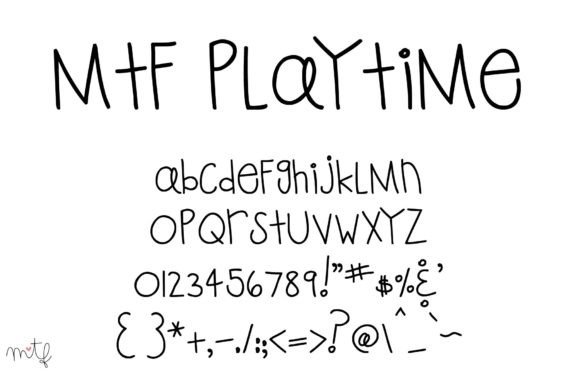
Playtime Font
About Playtime Font
Playtime is not just a font; it’s an invitation to infuse your creations with friendliness and a carefree attitude. This delightful handwritten typeface brings a playful charm to anything it touches, complementing your designs with a touch of joy. Slightly minimalistic yet remarkably tidy, Playtime is designed to please and enhance a wide array of projects.
The essence of Playtime lies in its ability to inspire a lighthearted and friendly vibe. The characters carry a sense of playfulness, inviting viewers to engage with your content in a joyful manner. Whether you’re creating social media graphics, invitations, or any other design, Playtime ensures a positive and welcoming atmosphere.
The font’s handwriting style adds a personal touch to your text, making it feel approachable and genuine. This authenticity is key in fostering a connection with your audience. Playtime is more than just letters on a page; it’s a visual representation of the carefree spirit it embodies.
Slightly minimalistic in its design, Playtime strikes a balance between simplicity and character. The tidy and well-defined letterforms contribute to the font’s overall clarity and readability. This makes Playtime a versatile choice for a variety of projects, from branding to creative endeavors.
The versatility of Playtime shines through in its ability to complement a wide range of design elements. Whether you’re crafting a logo, designing merchandise, or creating playful banners, Playtime adds a touch of delight without overwhelming the visual space. It adapts seamlessly to different contexts, enhancing your designs with its friendly demeanor.
Playtime is an excellent choice for those who appreciate the beauty of simplicity and the power of a carefree attitude. Its design philosophy aligns with the idea that sometimes, less is more. The font’s tidy appearance ensures that your message is conveyed with clarity, while its handwritten charm adds that extra layer of personality.
In a world where first impressions matter, Playtime ensures that your designs leave a positive and lasting impact. It’s a font that goes beyond the realm of typography—it’s an embodiment of friendliness, joy, and a carefree spirit. So, let Playtime be your companion in spreading delight through design, one playful character at a time.